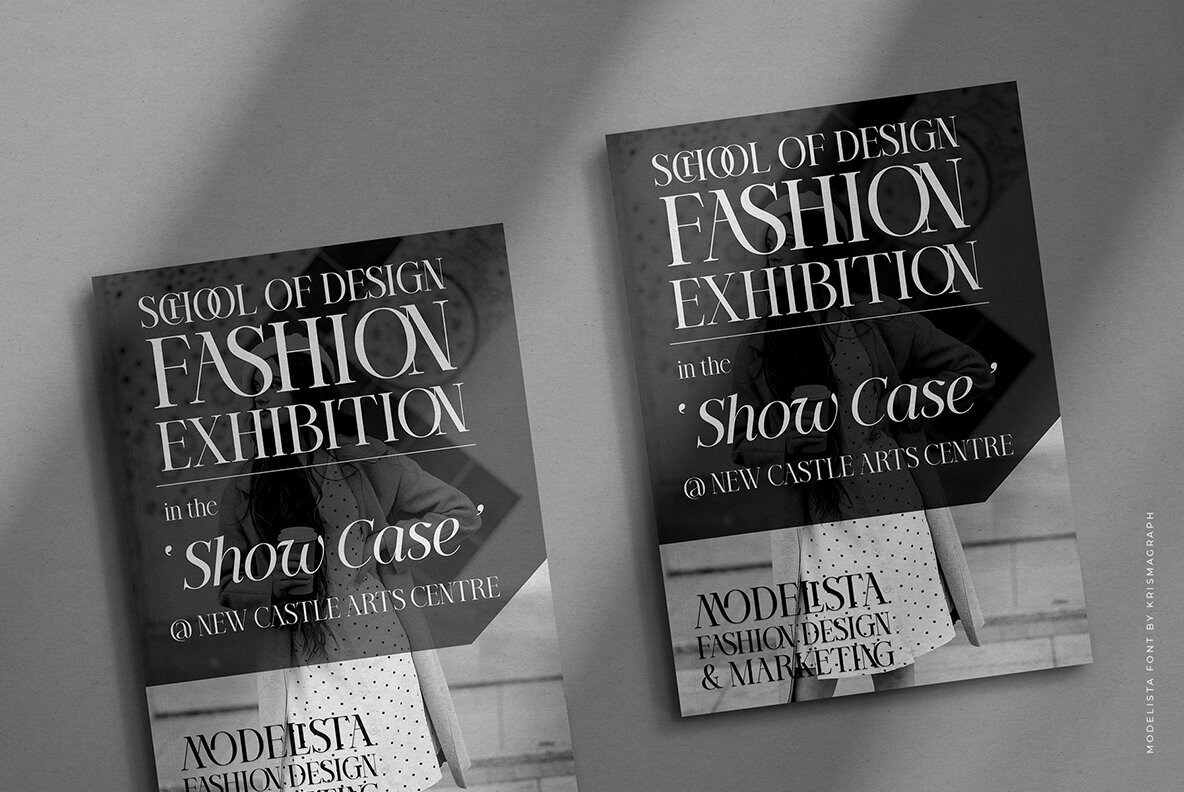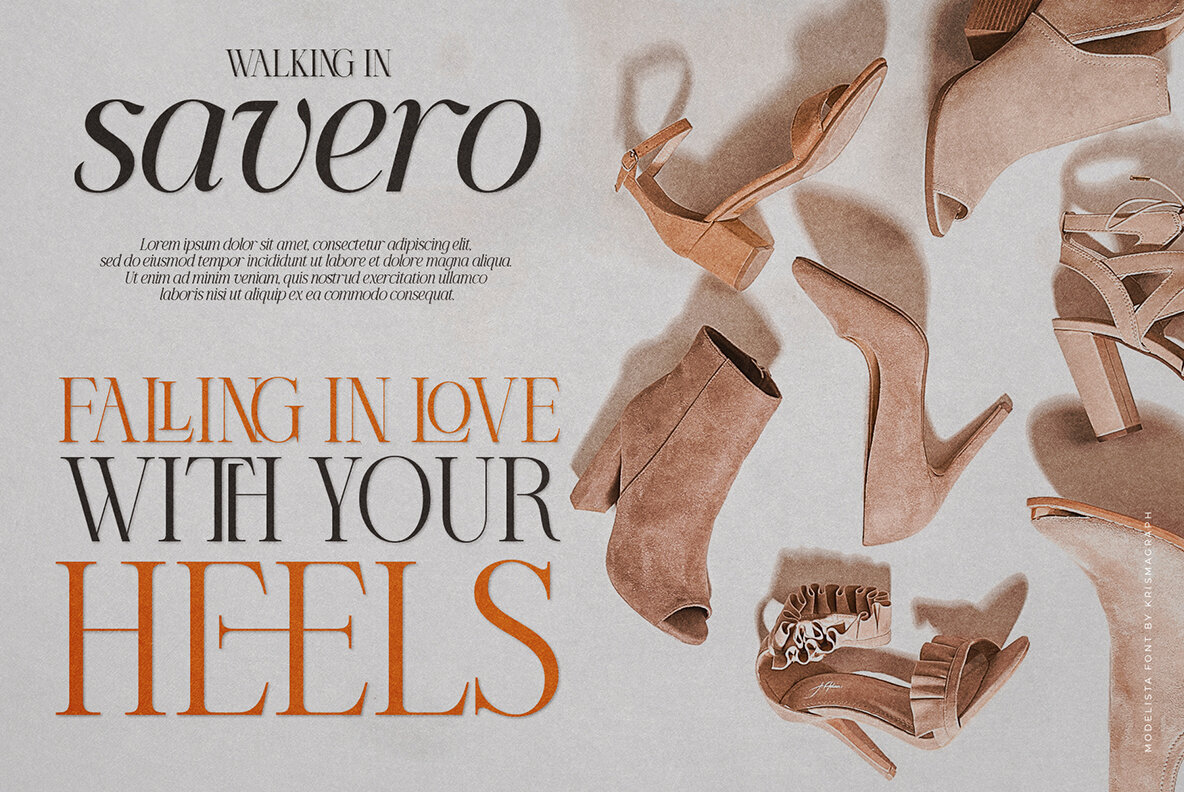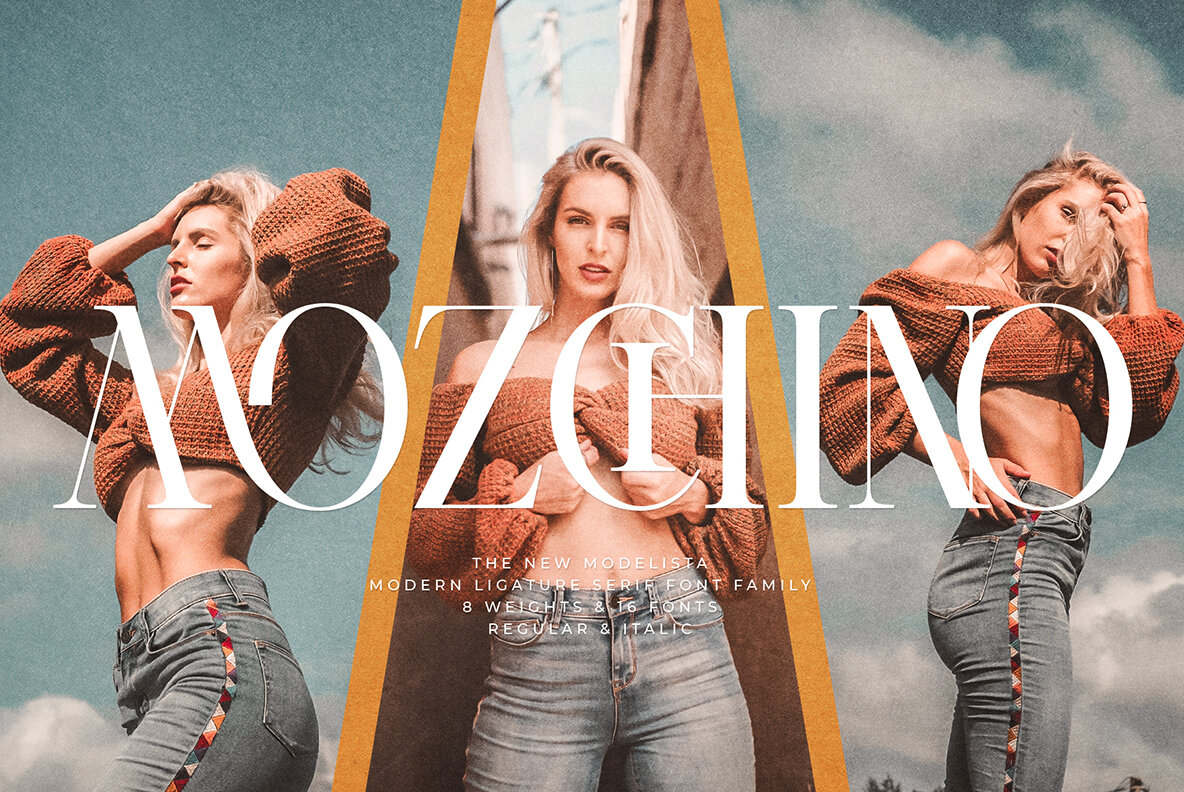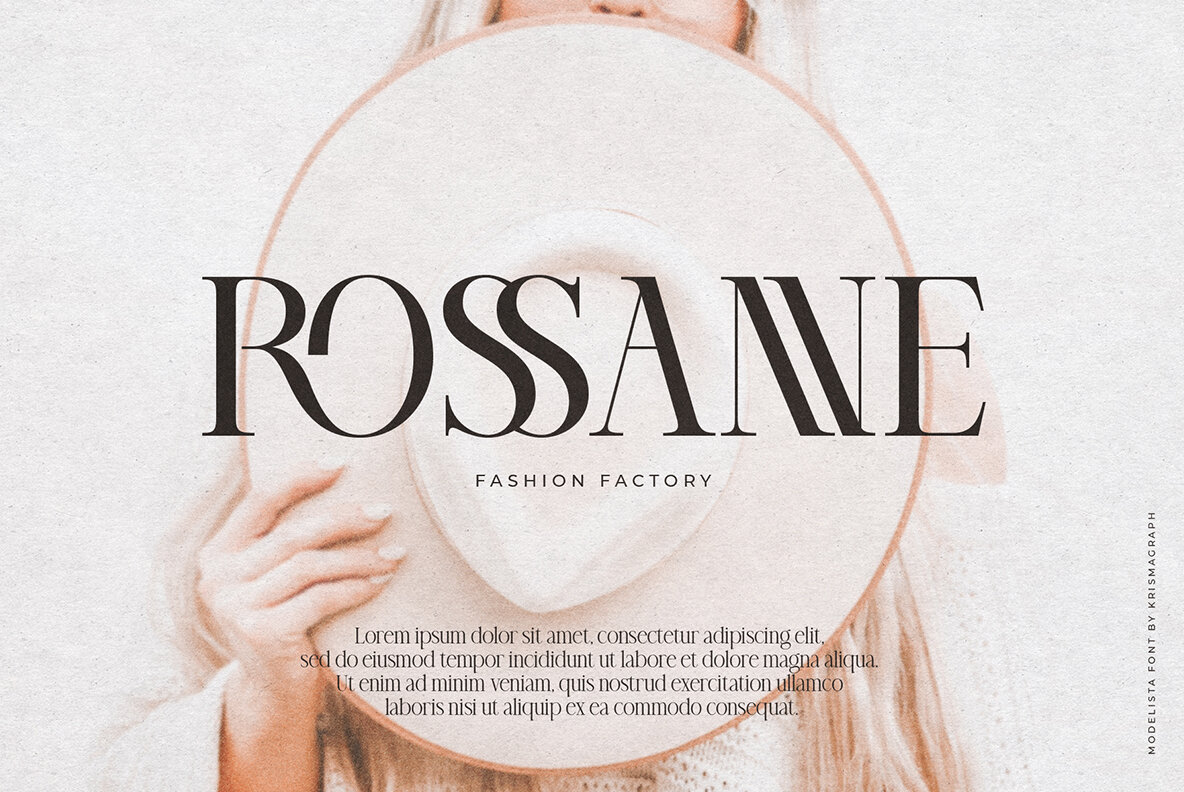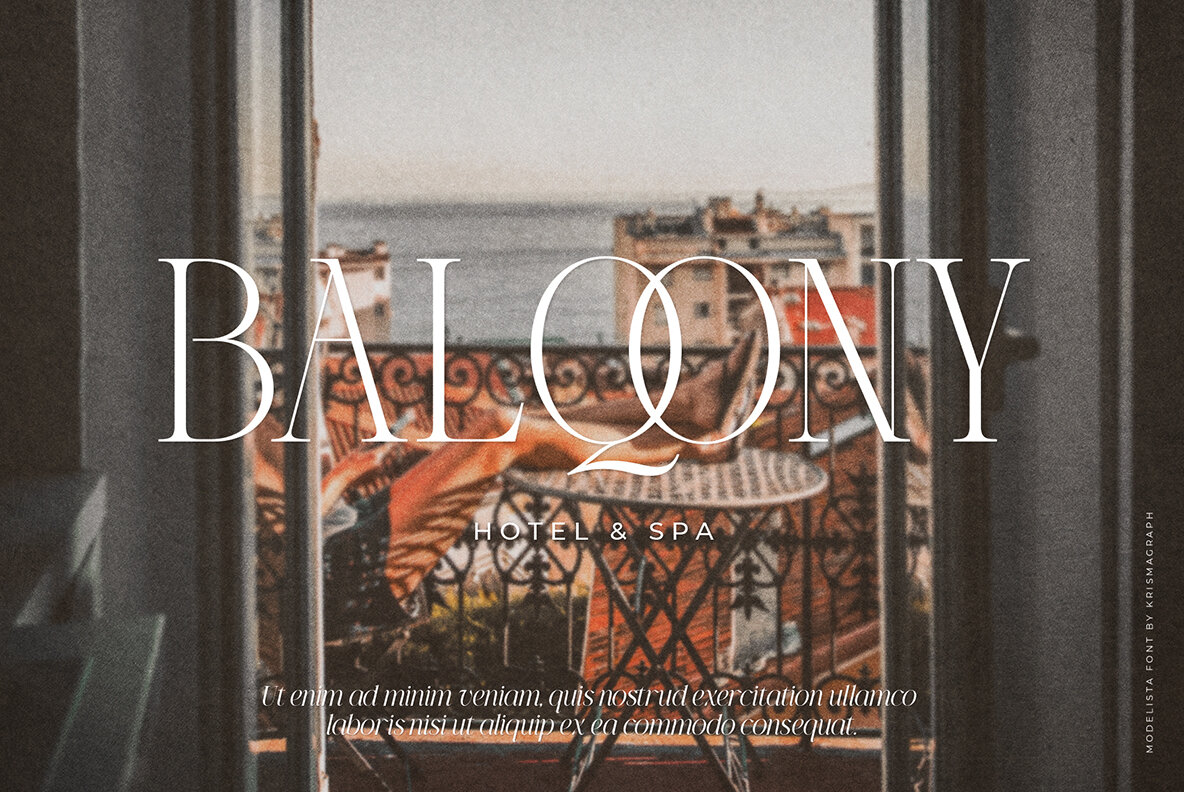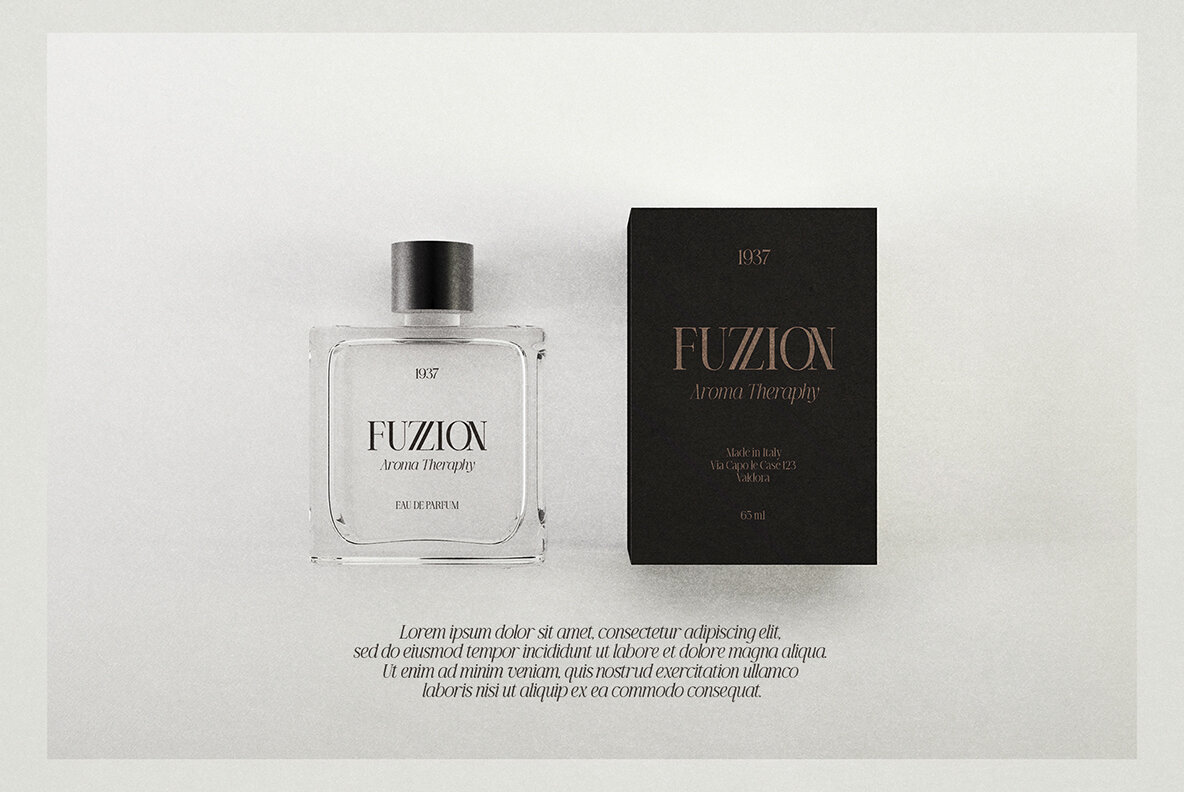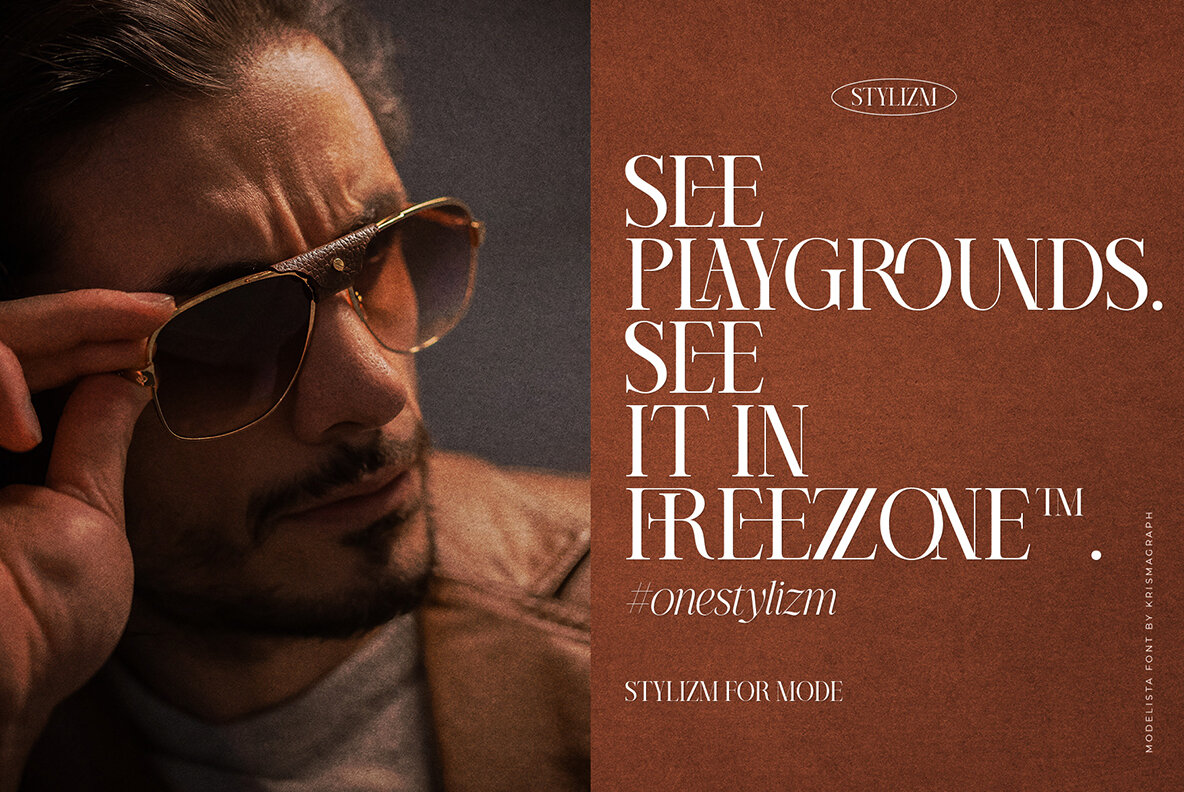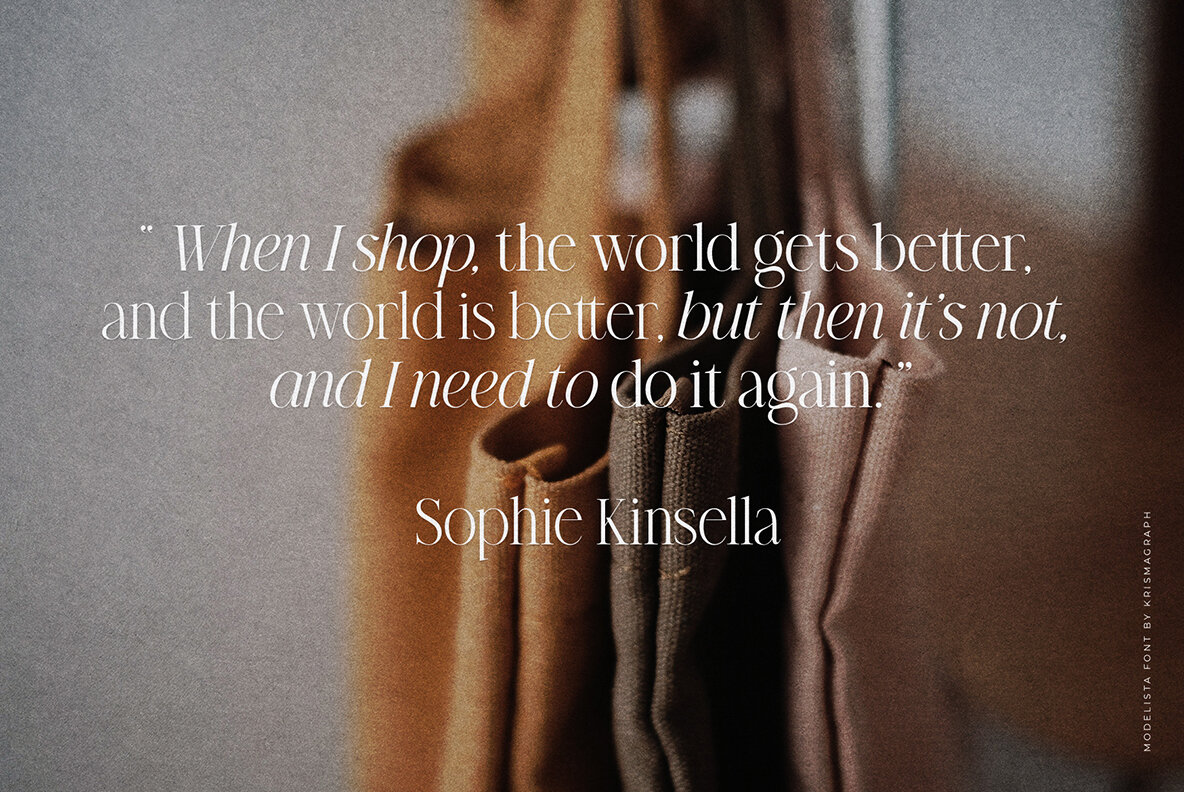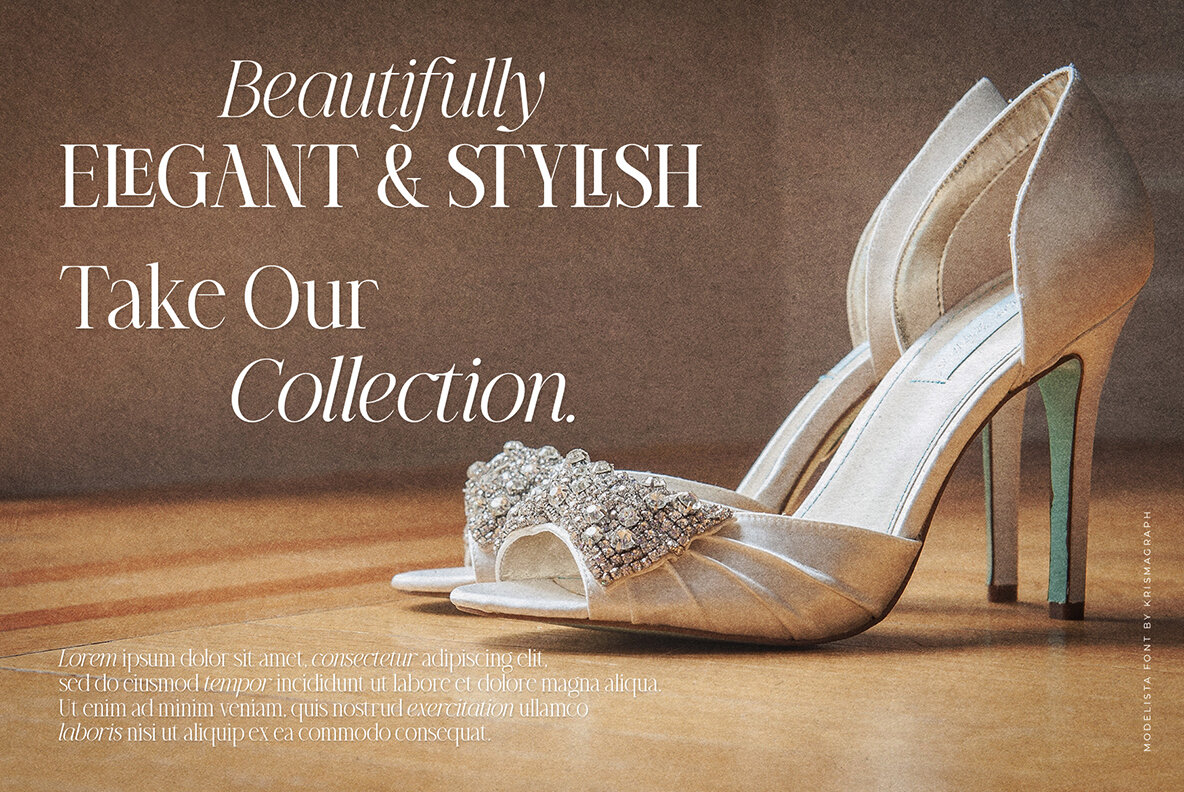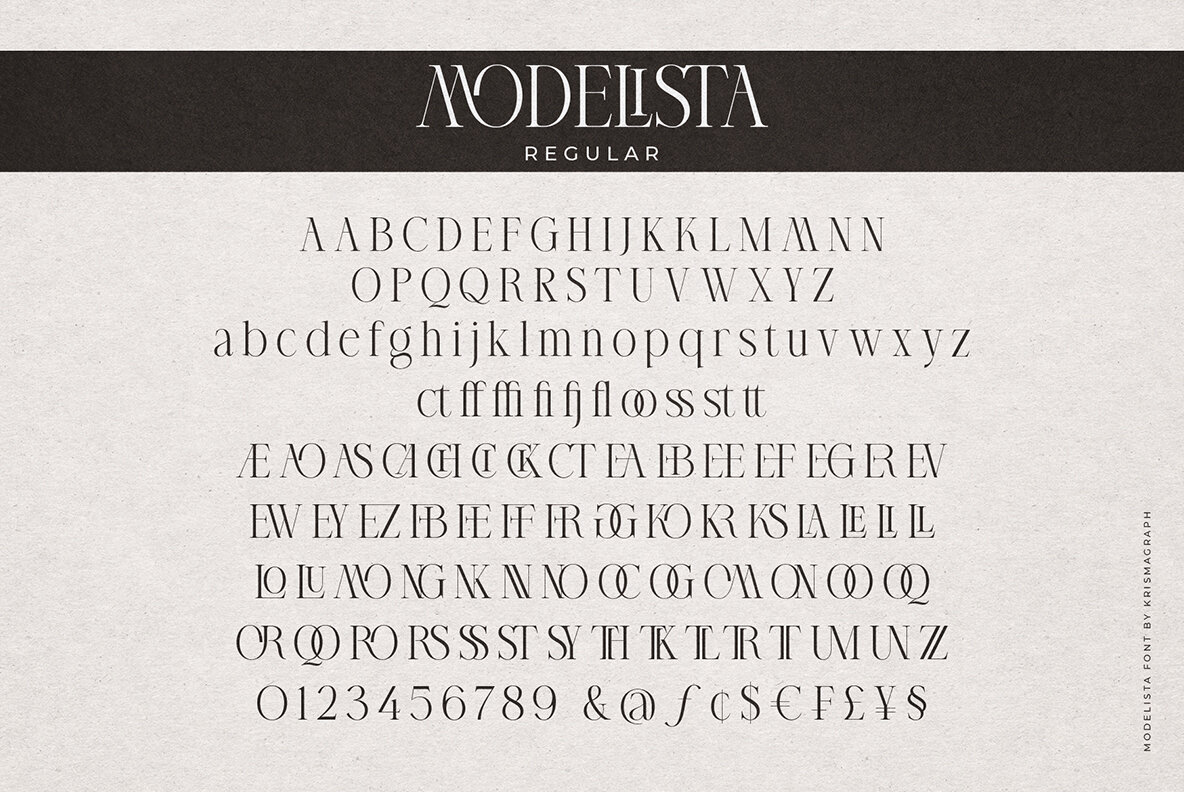
Modelista Font
Get ready to create your most modern and beautiful designs with Modelista Serif! This multipurpose font is perfect for any project, and features a unique ligature to give your projects an added touch of sophistication. From headings and logos, to quotes and product packaging, Modelista's high-contrast glyphs make it ideal for those seeking an elegant yet easy-to-read style.
Modelista comes with 16 fonts in total—8 weights each in regular and italic—and includes a full alphabet, numbers, fractions, punctuation, symbols, alternatives and multilingual support. OpenType features also ensure that you won't have any trouble using this font. Make sure to add this versatile family of fonts to your design toolkit today!